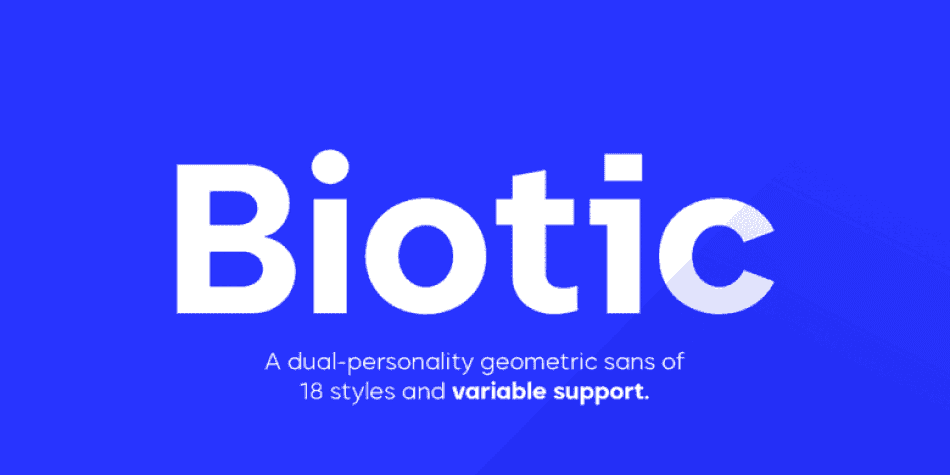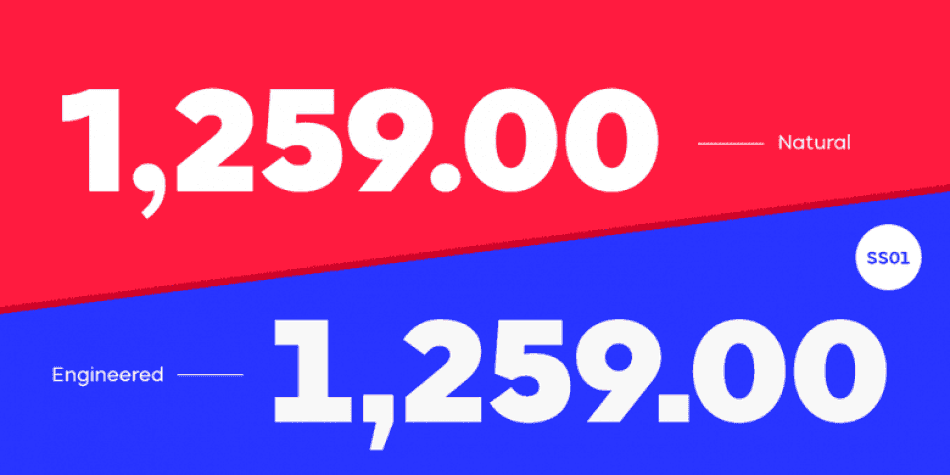
Discover Biotic Font Family, part of the Sans Serif collection—a versatile and unique font perfect for adding a personal touch to your projects. Download it for free and enjoy crafting designs with style, from invitations to social media posts. This font is available exclusively for personal use, giving you the freedom to create without limits. Unlock your creativity with Biotic Font Family today!
Biotic Sans Serif Font Family is an 18-style typeface with two personalities, and two distinctive design styles which can be toggled by simply flicking a switch. When in its more natural mode, its geometric font utilizes standard forms; but when switched over to its engineered mode certain characters change instantly into square-based glyphs for instant impact – these include F, IJ LTATY etc… Also included is accent and punctuation which shifts away from this trend towards square based letters and punctuation marks which adhere to it!